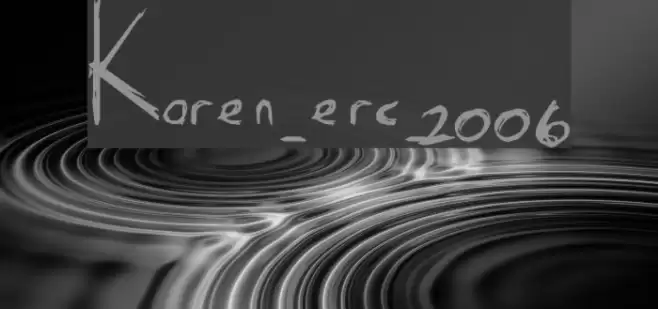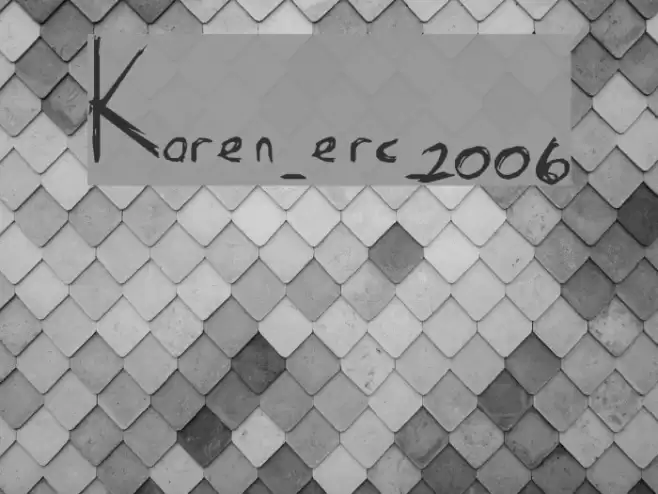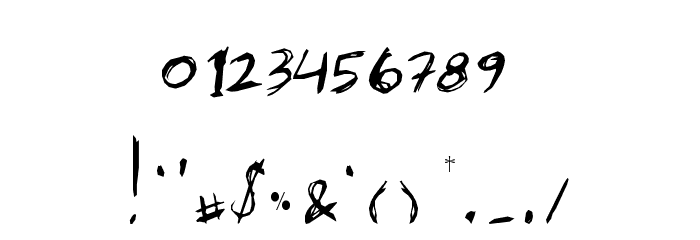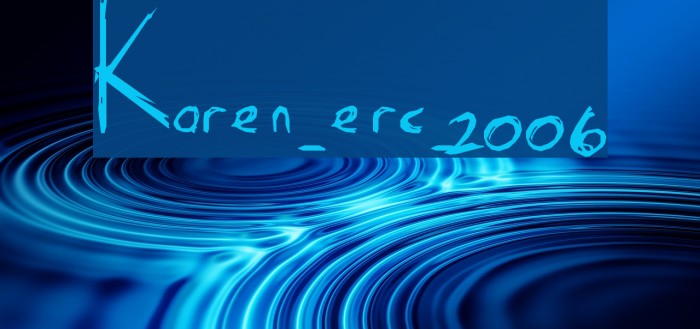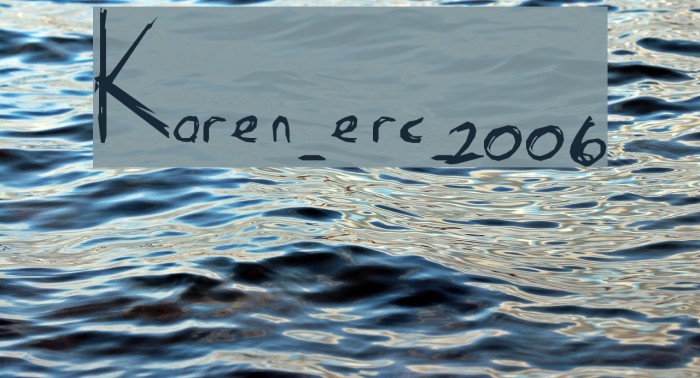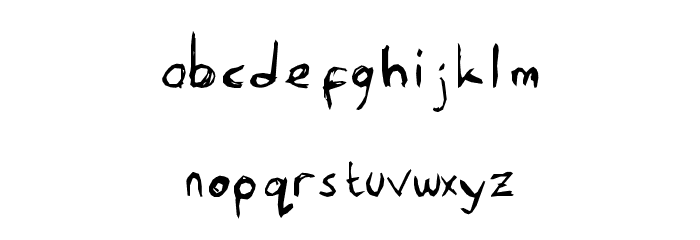
Karen_erc_2006 Font
Karen_erc_2006 Description
This font exhibits a raw, hand-drawn aesthetic with irregular strokes and a slightly chaotic appearance. The characters are unevenly shaped, giving it a unique and artistic flair. The uppercase letters are bold and prominent, while the lowercase letters maintain a consistent yet quirky style. Numbers and special characters follow the same hand-crafted look, adding to the font's overall distinctive personality. The strokes vary in thickness, contributing to a dynamic and expressive feel. This font is ideal for projects that require a touch of creativity and individuality.
A hand-drawn, artistic font with irregular strokes and a unique, expressive style from Handwritten fonts.
- Proposed Projects: Ideal for artistic projects, creative posters, album covers, and any design needing a personal touch.
- Use Case: Logos, Headlines, Creative projects